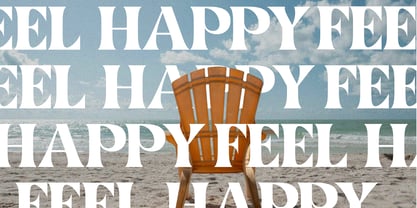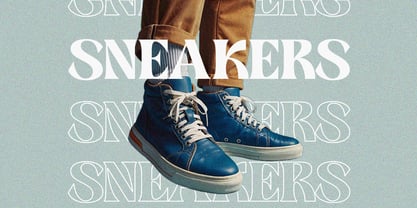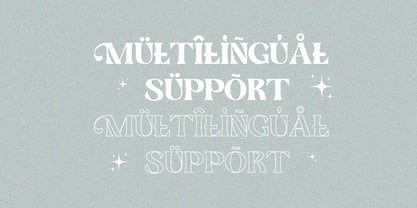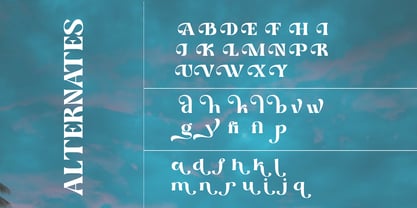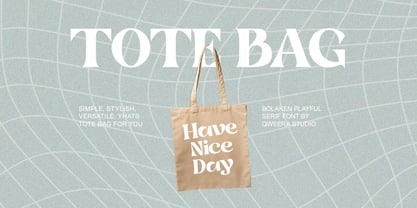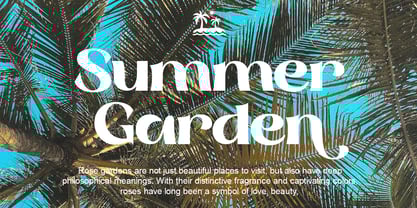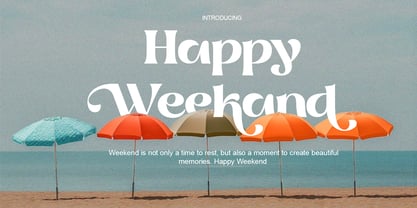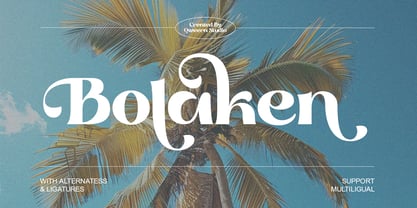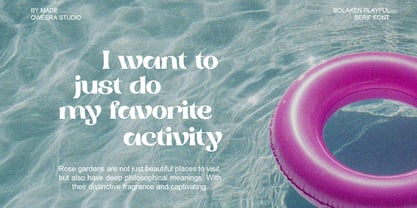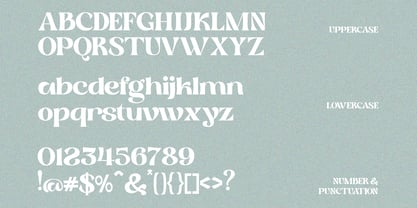
Bolaken
by Qweera Studio
The Bolaken Font Family was designed by Idhham Cholid Rikzano Yahya and published by Qweera Studio. Bolaken contains 2 styles and family package options.
Bolaken - Retro Serif Font for Vintage-Inspired Branding Bolaken is a charismatic retro serif typeface that beautifully captures the essence of classic typography with a modern twist. Featuring both Regular and Italic styles with stylish alternates and ligatures, this font is expertly crafted for nostalgic branding, vintage logos, retro packaging, and poster designs that demand authentic character. Where Vintage Charm Meets Contemporary Versatility With its distinctive serifs and playful italic variant, Bolaken delivers exceptional flexibility for brands seeking both nostalgia and freshness. The carefully designed alternates and ligatures enable authentic retro styling with modern readability. Premium Features Include: Classic Serif Design – Timeless letterforms with retro appeal Dual Style Versions – Regular & italic for dynamic applications Stylistic Alternates – 20+ authentic character variations Expressive Ligatures – Vintage-inspired letter connections Universal Compatibility – From product packaging to social media Extended Latin Support – Comprehensive character set Bring Retro Flair to Your Modern Designs Ideal for: Craft beverage branding Vintage product packaging Music festival promotions Retro café identities Editorial headline typography Available Now – Relive the Golden Era with Bolaken!